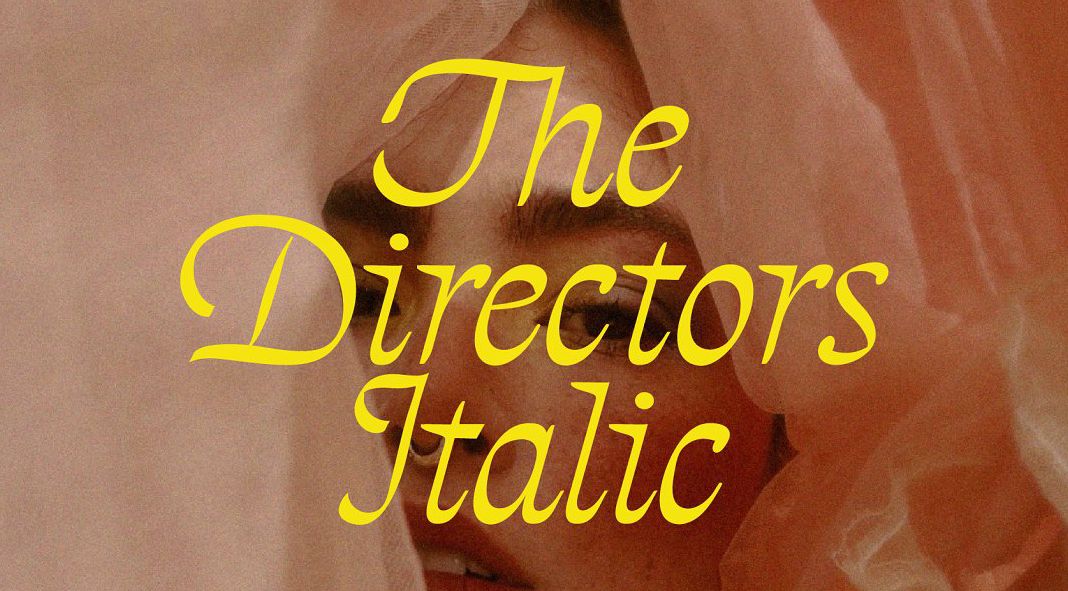
Say hello to The Directors Italic typeface: nostalgia inspired by Wes Anderson’s film typography.
Tropical Type’s The Directors Italic is a typeface that pays homage to Wes Anderson’s film typography. With its ornate italic style, this typeface offers a unique blend of retro curves and classic calligraphy, infusing your design projects with a touch of romantic flair. We’ll explore the distinctive features and charm of The Directors Italic typeface and discuss how pairing it with Futura can create an impactful Wes Anderson effect.
Nostalgic Inspiration
The Directors Italic typeface draws inspiration from Wes Anderson’s distinctive visual style, known for its meticulous attention to detail, symmetry, and pastel color palettes. The typeface aims to evoke nostalgia and transport viewers to a bygone era. It seamlessly combines the retro curves reminiscent of the 1960s and 1970s with elements of older-style calligraphy, resulting in a typeface that oozes character and charm.
Ornate Italic Style
One of the defining features of The Directors Italic is its ornate italic style. The letters are beautifully slanted, lending a sense of elegance and sophistication to any design. The curves and flourishes within the letterforms create a visual rhythm that adds to the overall aesthetic appeal. Each character is meticulously crafted, ensuring a consistent and harmonious flow throughout the typeface.
Analog Photography Vibes
Analog photography has a unique charm and warmth that often resonates with Wes Anderson’s visual storytelling. The Directors Italic typeface captures this essence, allowing designers to bring the nostalgic feel of film photography into their projects. Whether it’s a movie poster, a book cover, or a brand identity, this typeface infuses the design with a sense of authenticity and a hint of whimsy.
Pairing with Futura
To maximize the Wes Anderson effect in your designs, consider pairing The Directors Italic with Futura, a geometric sans-serif typeface. The contrast between the delicate, romantic curves of The Directors Italic and the clean, modern lines of Futura creates a visually captivating dynamic. Futura’s simplicity acts as a perfect counterpoint to the ornate elegance of The Directors Italic, enhancing the overall aesthetic impact of the design.
Applications and Design Possibilities
The Directors Italic typeface opens up a myriad of design possibilities. It is an excellent choice for movie titles, posters, book covers, editorial layouts, and branding projects that seek to capture the essence of Wes Anderson’s visual style. Its distinctive flair brings a touch of nostalgia and whimsy to any design, allowing you to evoke emotions and tell stories through typography.
The Directors Italic typeface by Tropical Type is a nostalgic homage to Wes Anderson’s film typography, offering a captivating blend of retro curves, ornate calligraphy, and analog photography vibes. Its ability to pair seamlessly with pastel color palettes and the complementary use of Futura enables designers to achieve the maximum Wes Anderson effect.